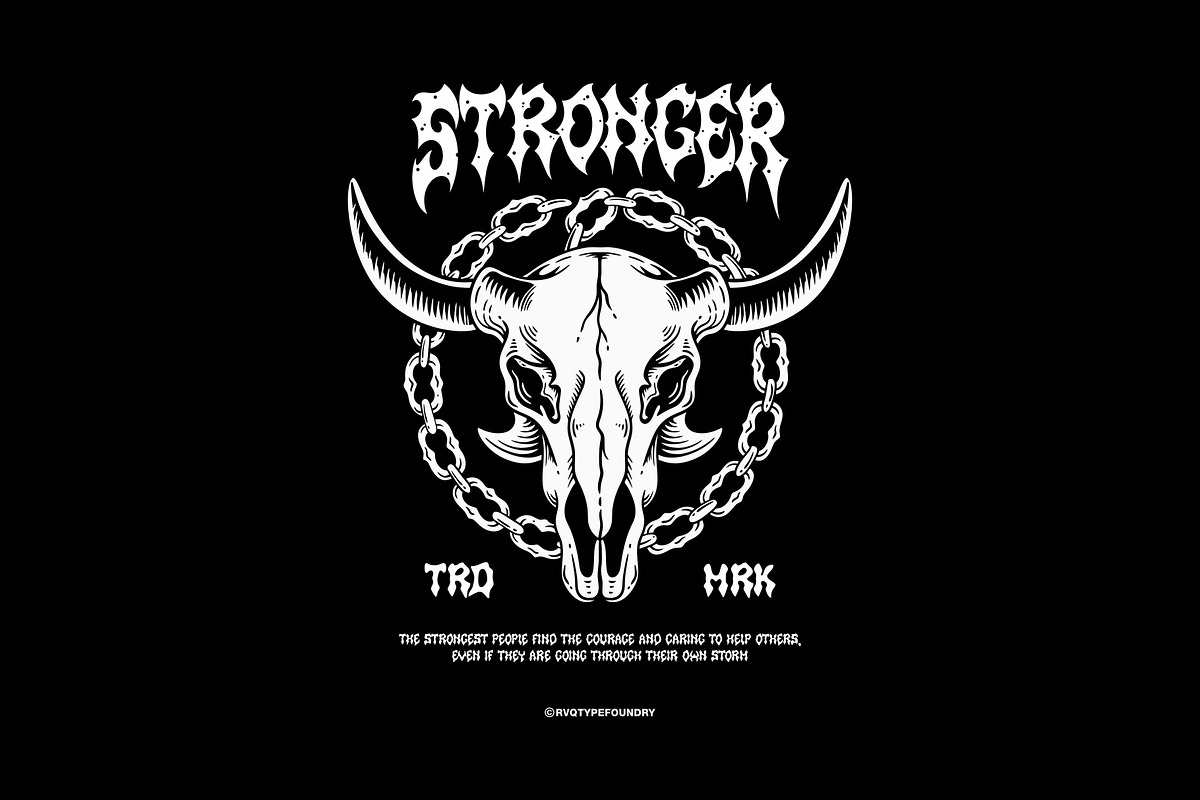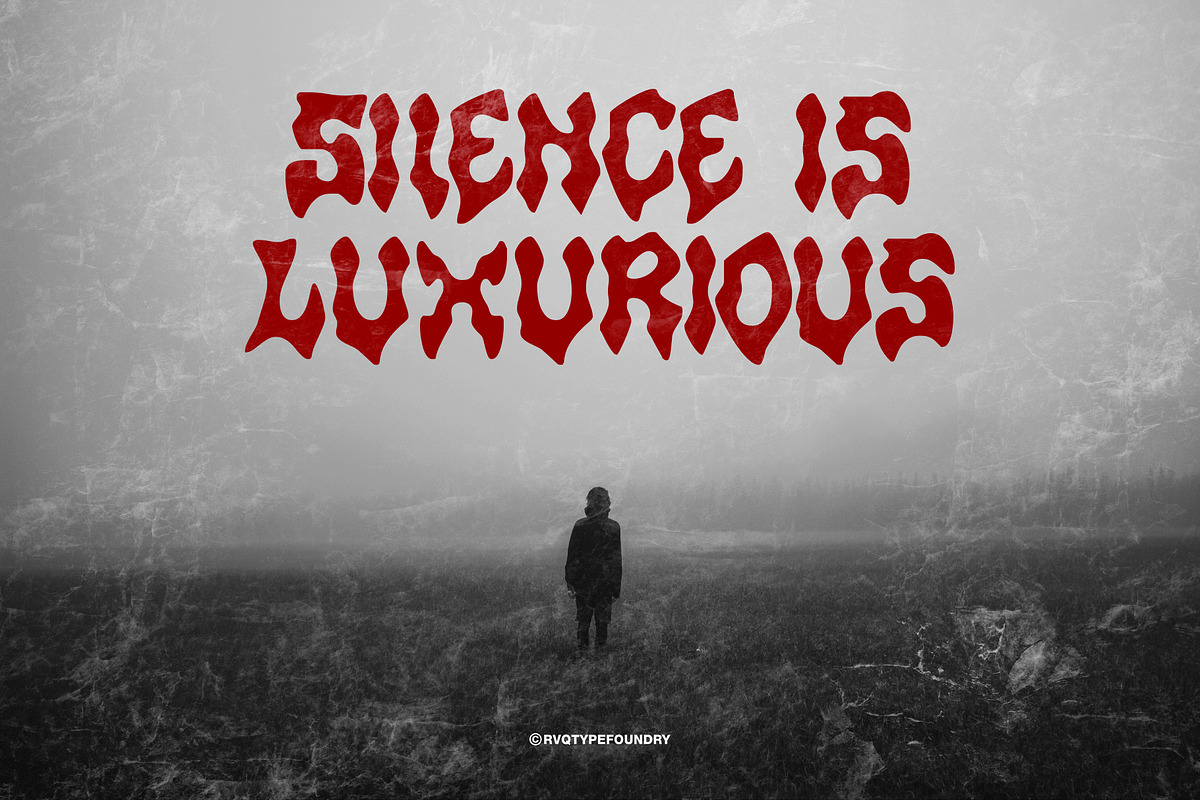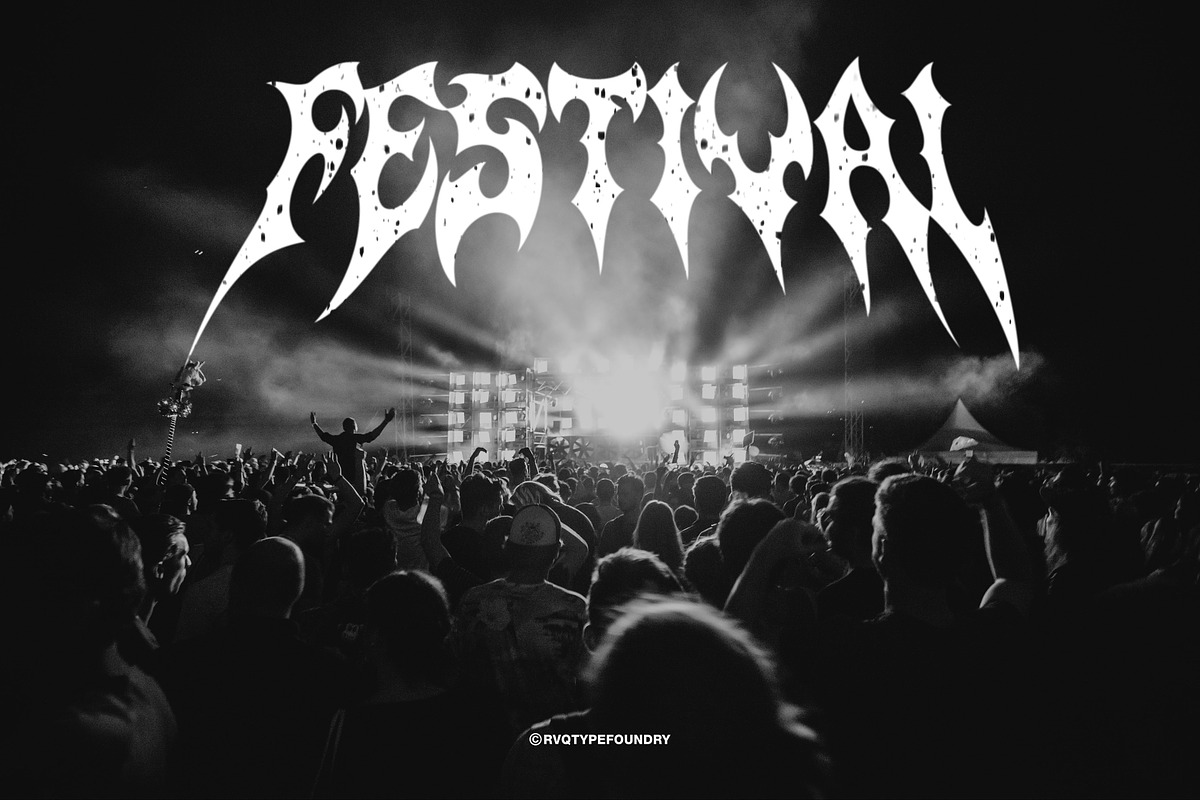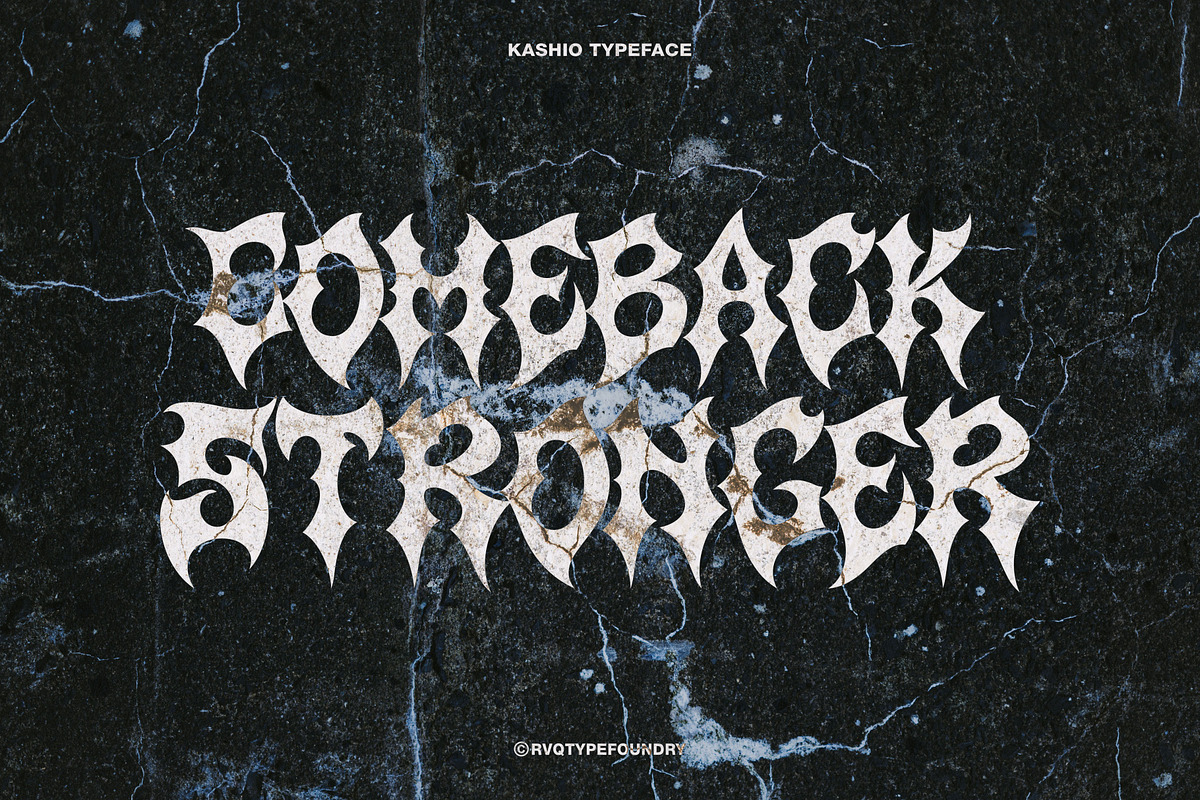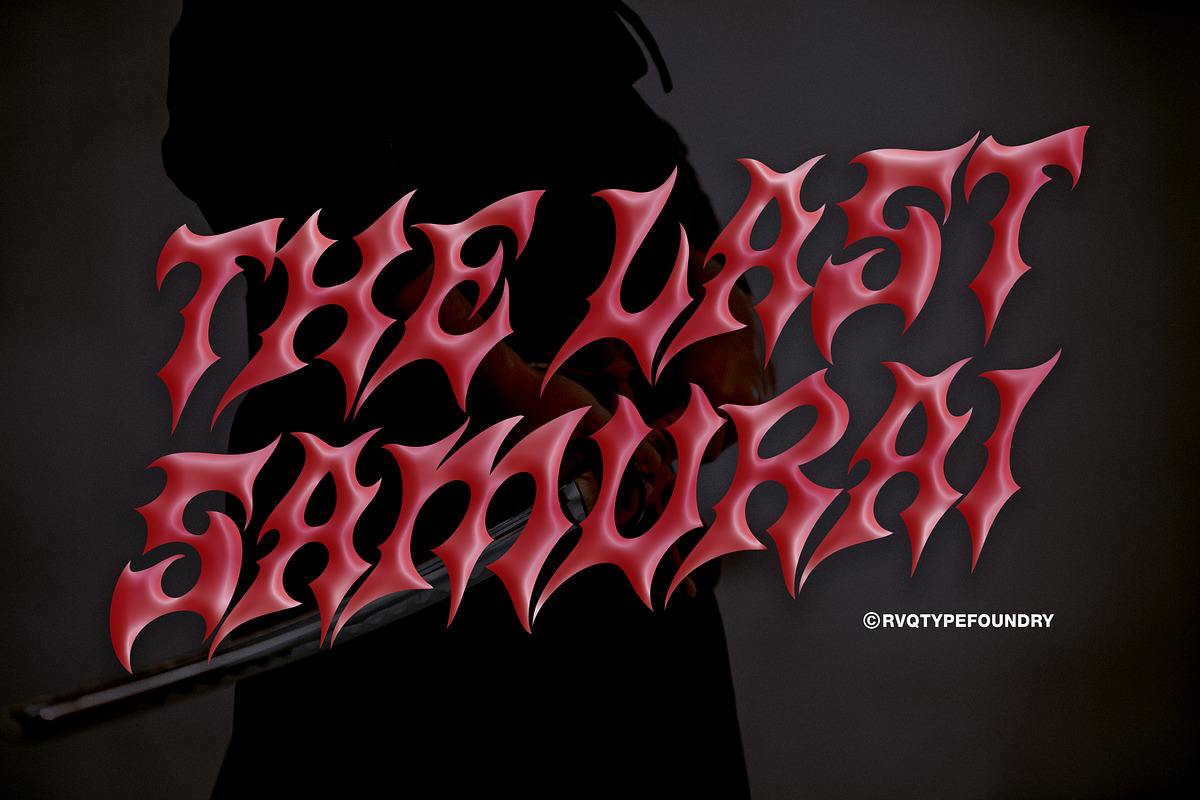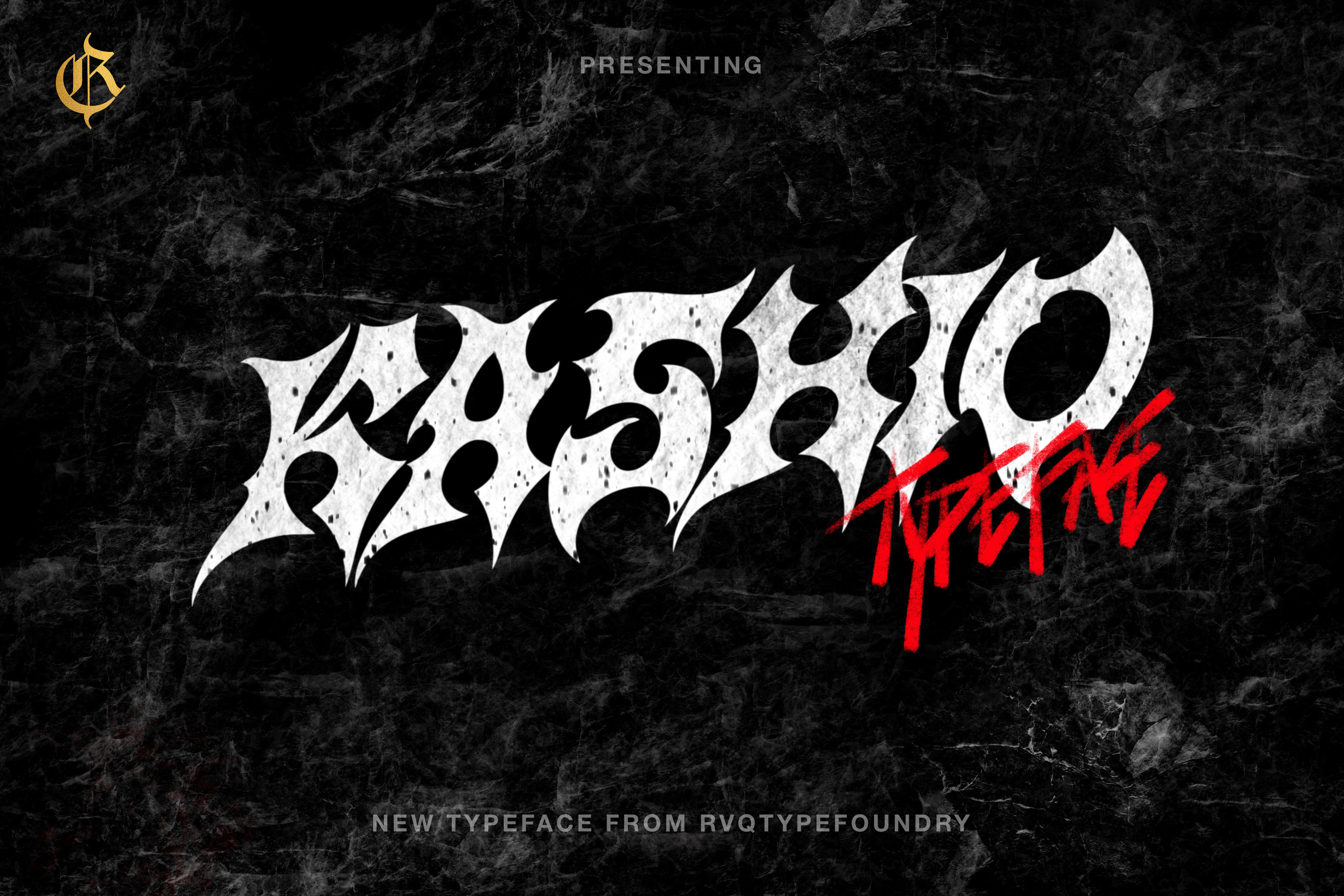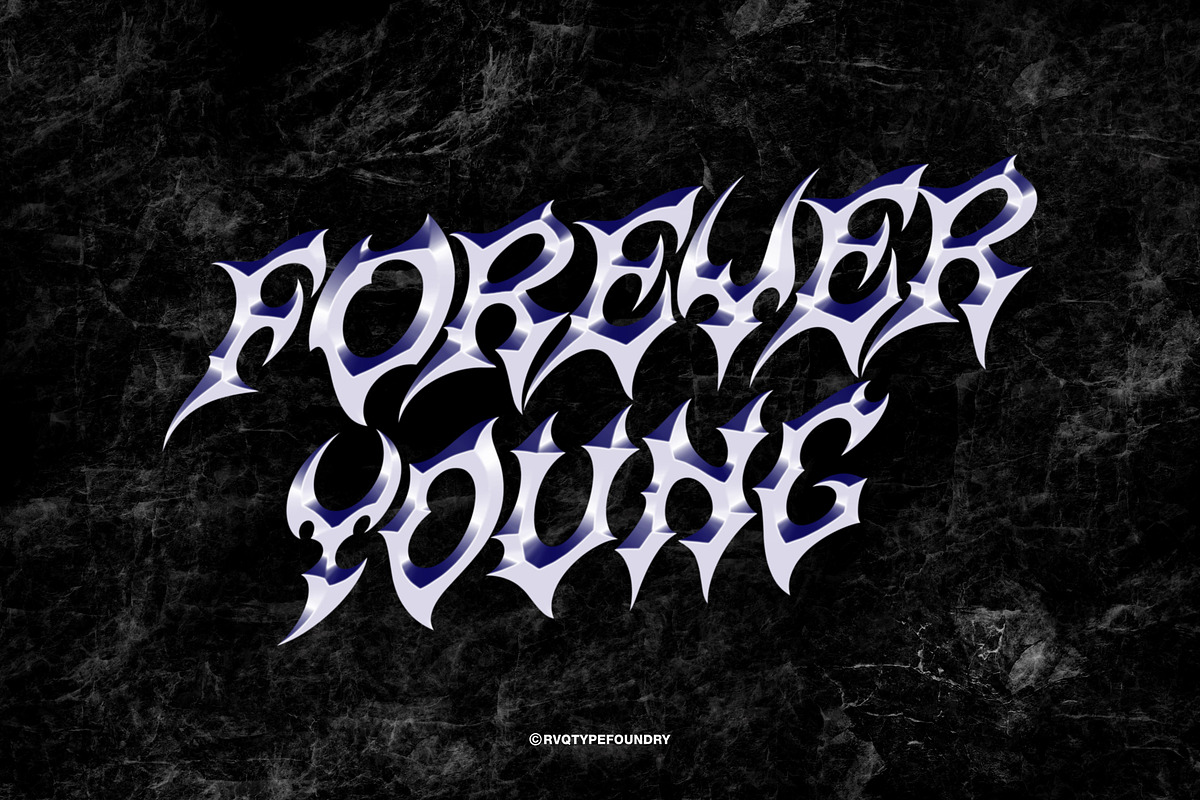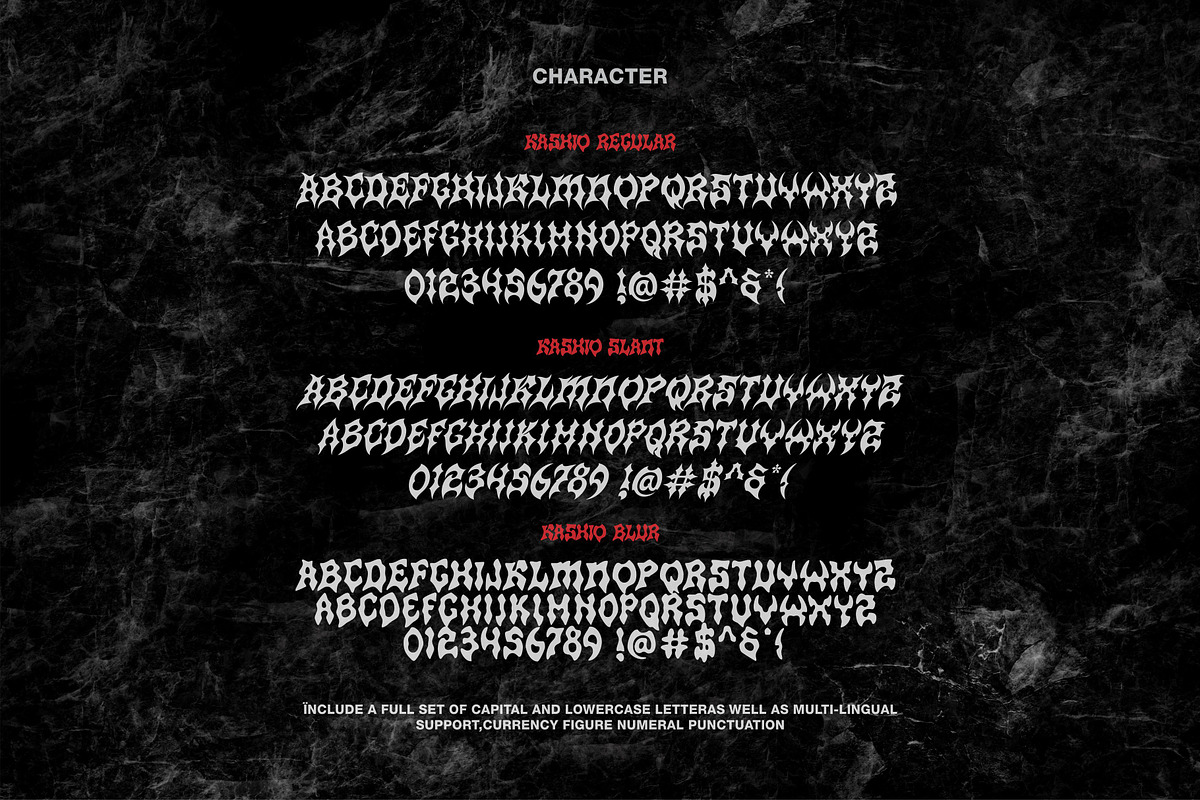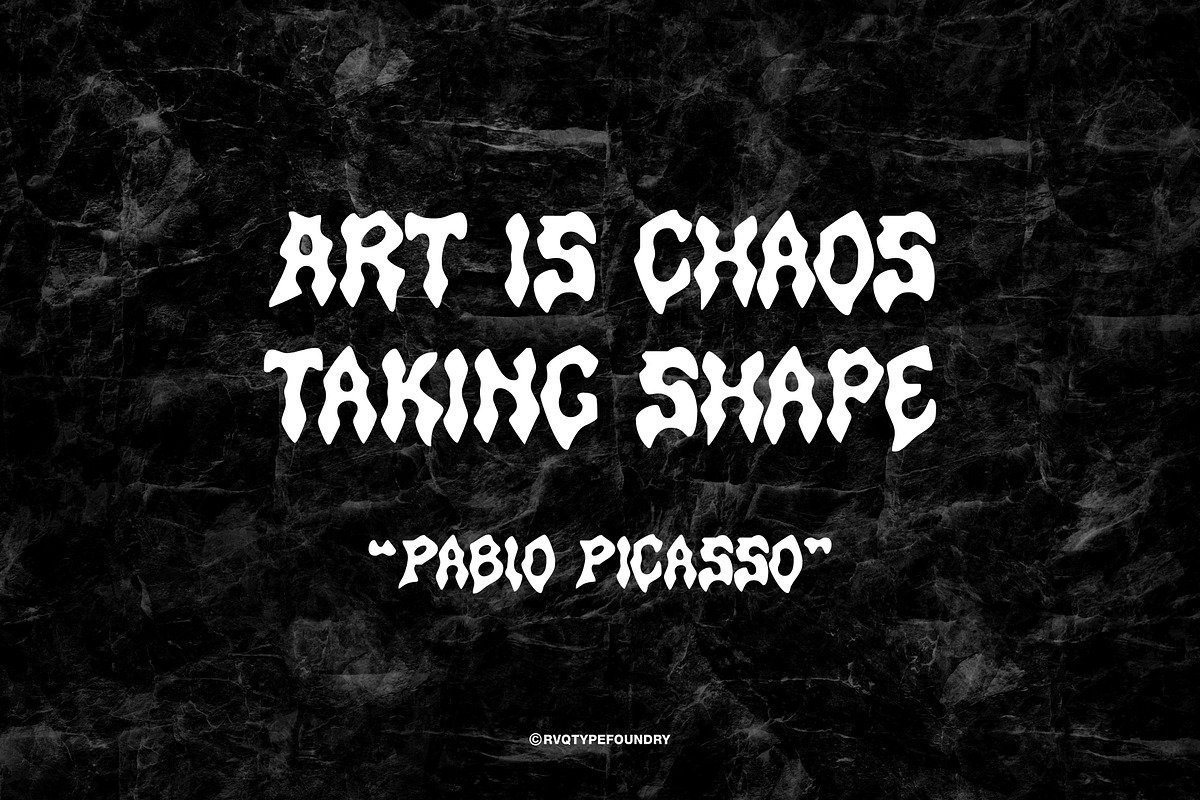
Kashio Typeface (3 style)
kashio is a font created to support all designs based on rock music and gothic style, it can be used for band names, merchandise, apples, festival posters, concert advertisements, games and for illustrators to support their work. Kashio is divided into 3 styles that are easy to use and can be applied to the designs you create.
- Kashio Regular
- Kashio Slant
- Kashio Blur
- Character Set A-Z